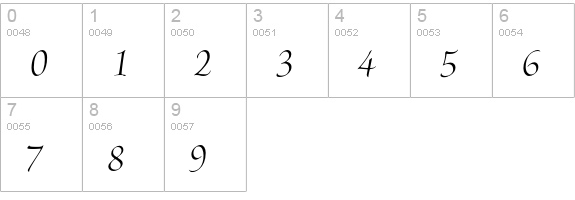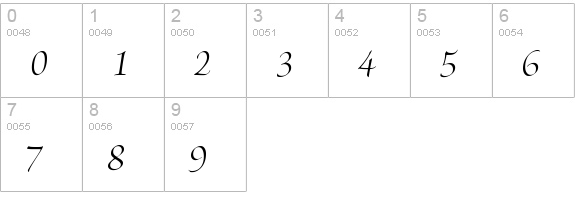
Brioso Pro Italic Display is a distinctive, italic variant in the Brioso typeface family \xE2\x80\x94 well suited to design and typography projects.
Brioso Pro Italic Display font exudes elegance and sophistication with its sleek and stylish design. The flowing curves and delicate strokes of this typeface give it a refined and modern appearance, making it perfect for adding a touch of luxury to any project. Whether you're working on a branding project, editorial design, or any other creative endeavor, Brioso Pro Italic Display font will bring a sense of sophistication and class to your work. The italic style of this font adds a dynamic and expressive element, making it ideal for adding emphasis or creating a sense of movement in your designs. The spacing and kerning of Brioso Pro Italic Display font have been meticulously crafted to ensure optimal readability and visual appeal. Best of all, Brioso Pro Italic Display font is available for free download at FontsMarket.com. This means you can easily access this premium font and elevate your design projects without any cost. Don't miss out on the opportunity to enhance your creations with the timeless beauty of Brioso Pro Italic Display font, available for free at FontsMarket.com.